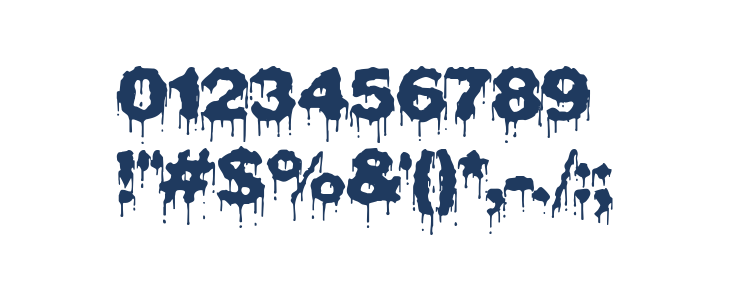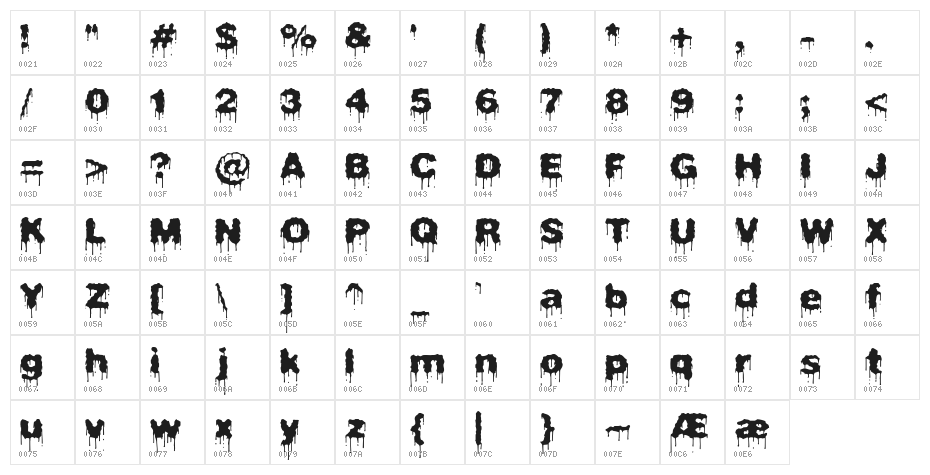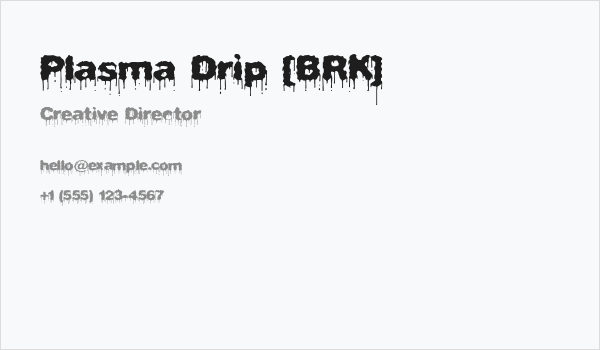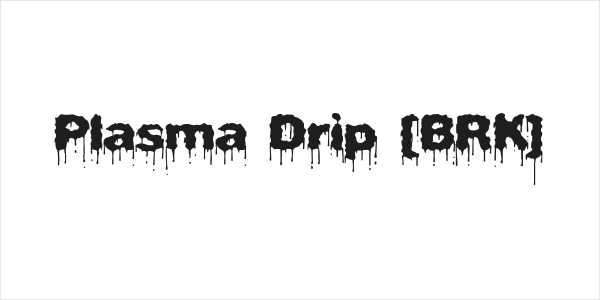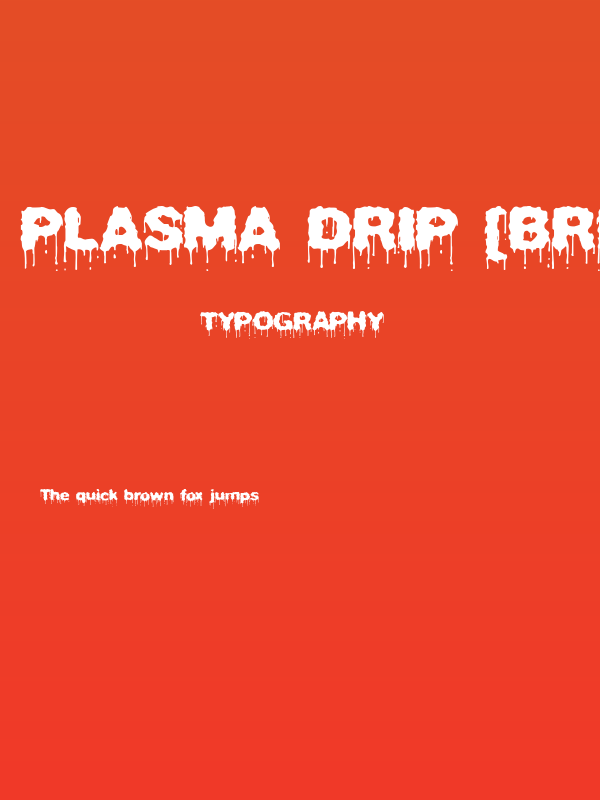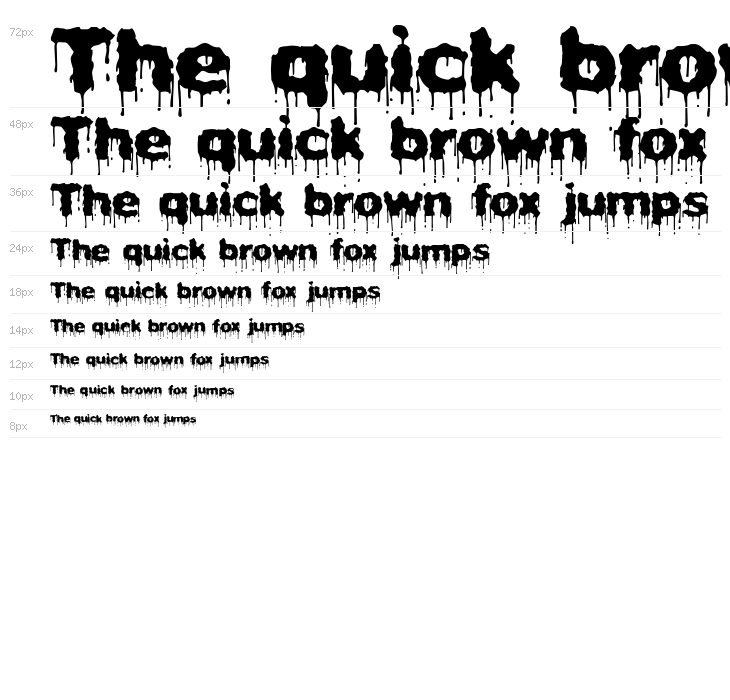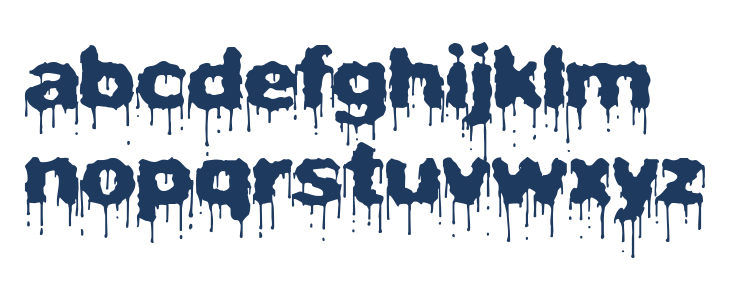
Plasma Drip [BRK] Font
Plasma Drip [BRK] Description
This font features a unique and dramatic dripping effect, reminiscent of liquid or paint dripping down each character. The uppercase and lowercase letters, as well as numbers and special characters, all share this distinctive style, giving the font a cohesive and thematic appearance. The bold, thick strokes create a strong visual impact, making it ideal for attention-grabbing designs. The irregular edges and dripping elements contribute to a sense of movement and fluidity, while maintaining legibility. This font is perfect for projects that require a bold statement or a touch of the macabre.
| Use Case | Headlines, Posters, Logos |
| Proposed Projects | Ideal for Halloween-themed designs, horror movie posters, edgy branding, or any project needing a bold, eye-catching typeface. |